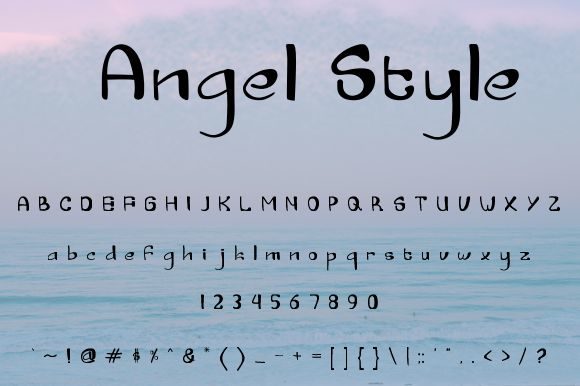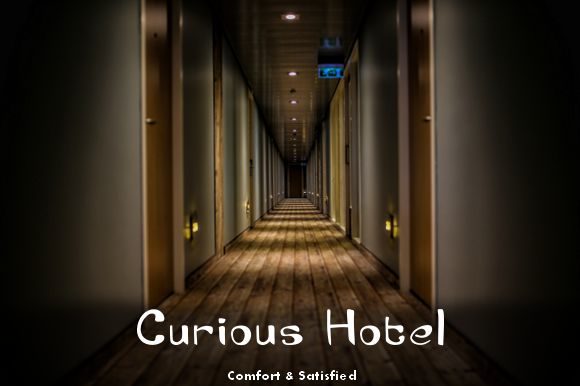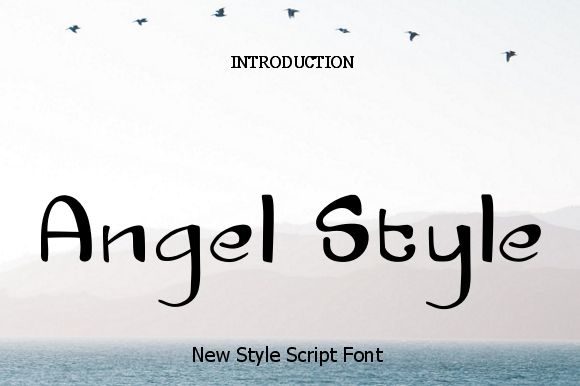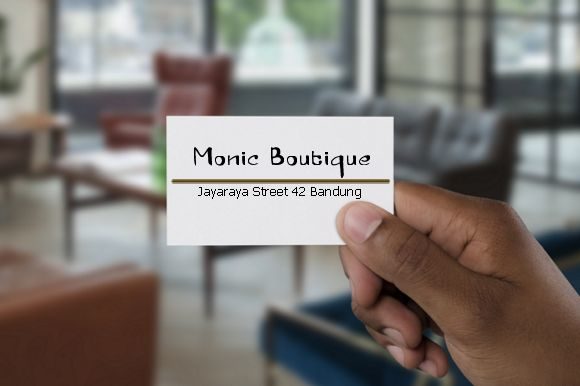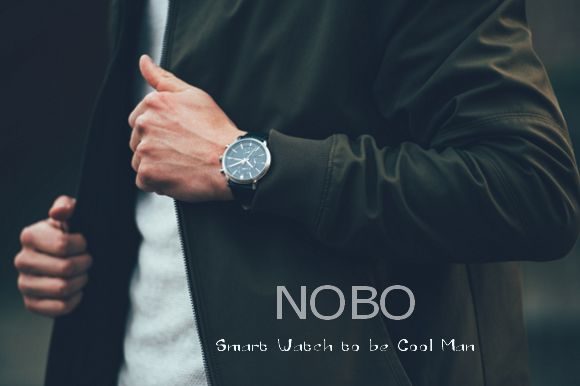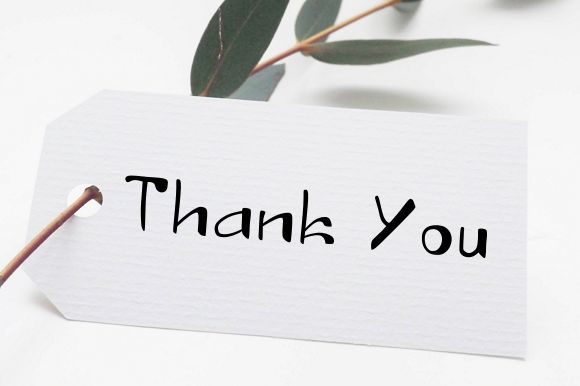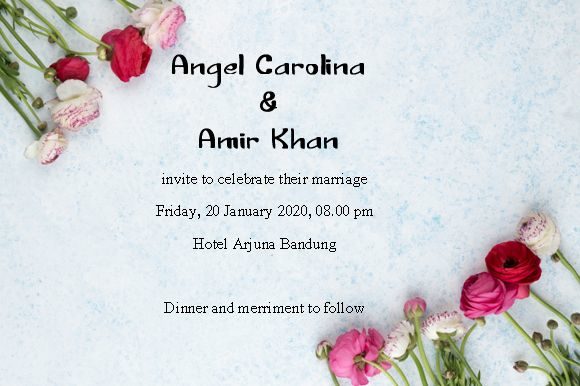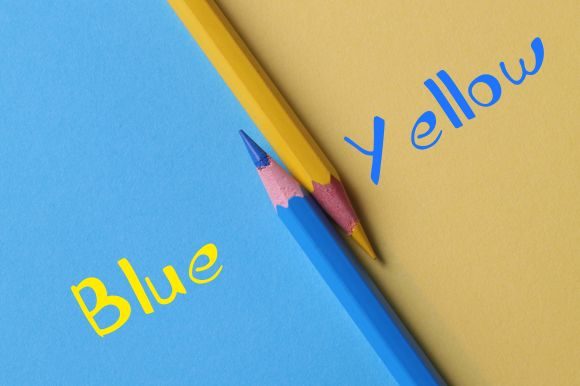
Angel Style Font
About Angel Style Font
Angel Style is a font script that can be used for various design products, such as logos, brands, invitations, taglines, publications, templates, and much more!